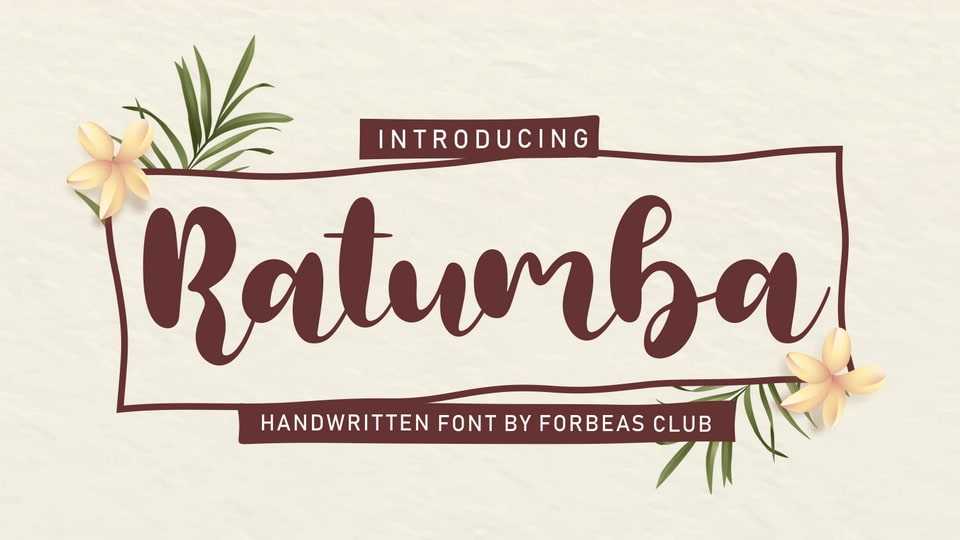
Download Ratumba font, a script inspired by modern and ligature characters. Ratumba font is perfect for creating modern and chic designs such as logos, packaging, editorials and more.